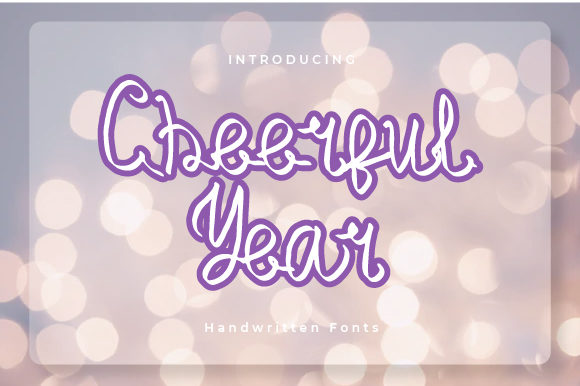
Cheerful Year Font
About Cheerful Year Font
Introducing Cheerful Year: The Delicate and Dainty Handwritten Font
Prepare to be enchanted by the elegance of Cheerful Year, a font that embodies the perfect balance of delicacy and uniqueness. Its handwritten charm will instantly captivate your heart and elevate your projects to new heights of beauty. From logos to wedding invitations, headings to t-shirts, and everything in between, Cheerful Year is the versatile gem that shines in any creative endeavor.
The delicacy of Cheerful Year’s letterforms adds a touch of refinement to your designs, creating an air of sophistication that leaves a lasting impression. Each stroke is meticulously crafted to exude an exquisite charm, making it an ideal choice for projects that demand a soft and graceful touch.
The font’s uniqueness sets it apart from the crowd, ensuring that your creations stand out with a distinct and eye-catching appeal. Whether you’re designing logos for your brand or crafting eye-catching posters, Cheerful Year effortlessly breathes life into your ideas with its one-of-a-kind allure.
Let your imagination run wild as you explore the myriad possibilities of this dainty font. From wedding invitations that capture the essence of love and romance to t-shirts that exude creativity and flair, Cheerful Year adapts to any purpose, adding a touch of elegance to your every creation.
The versatility of Cheerful Year knows no bounds – from business letterheads to shop signage, product labels to news articles, it seamlessly fits into any context, enhancing the overall aesthetic with its delicate beauty.
As you embrace the charm of Cheerful Year, you’ll find that it becomes an indispensable tool in your creative toolkit. Its ability to elevate any project, combined with its subtle yet stunning appeal, makes it a font that you’ll want to return to time and time again.
So, let Cheerful Year be your creative companion, guiding you through a world of delightful possibilities. Unlock the true potential of your designs and watch as this dainty handwritten font adds an undeniable touch of elegance to your every endeavor. Experience the magic of Cheerful Year and make this year and every year to come, truly cheerful and remarkable!